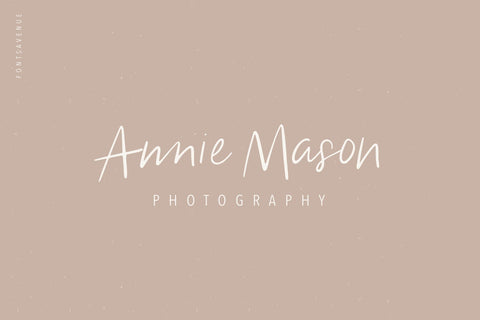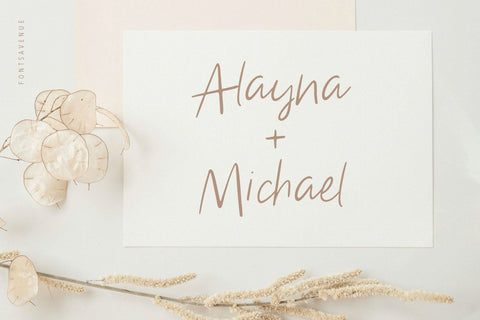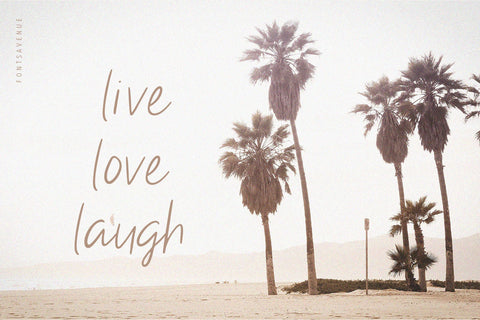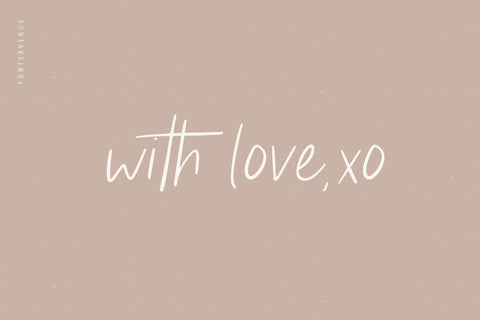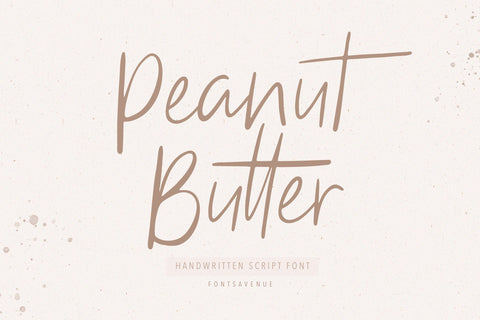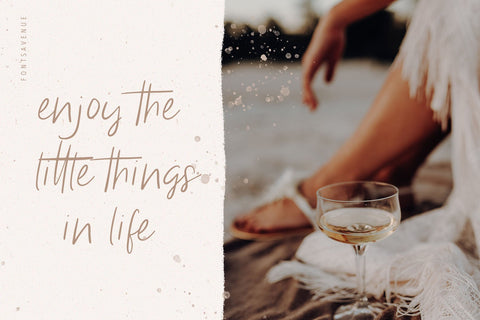
Peanut Butter | Modern Handwritten Script Font
Peanut Butter is a modern handwritten script font, perfect for invitations, logo design, branding, product packaging, quotes and much more!
Features
- Uppercase and lowercase letters
- Accented characters